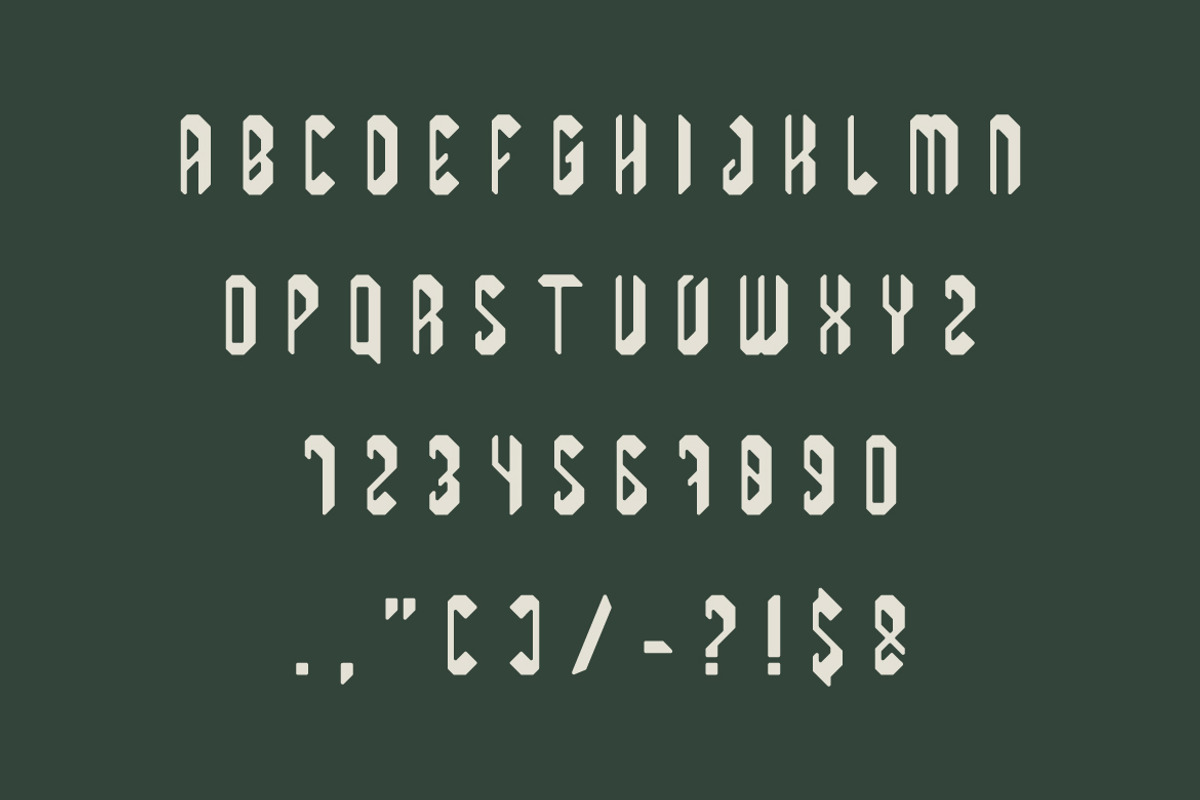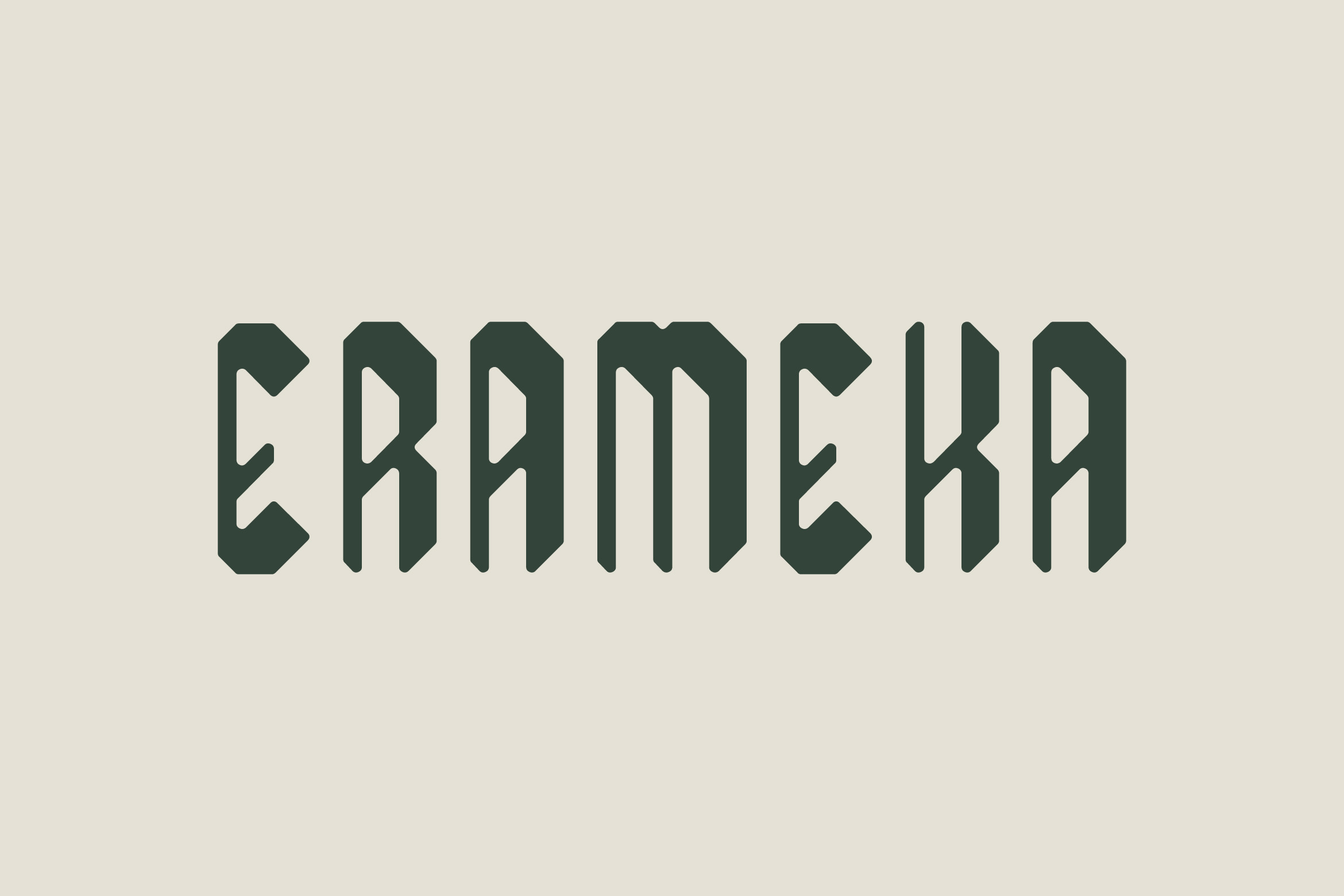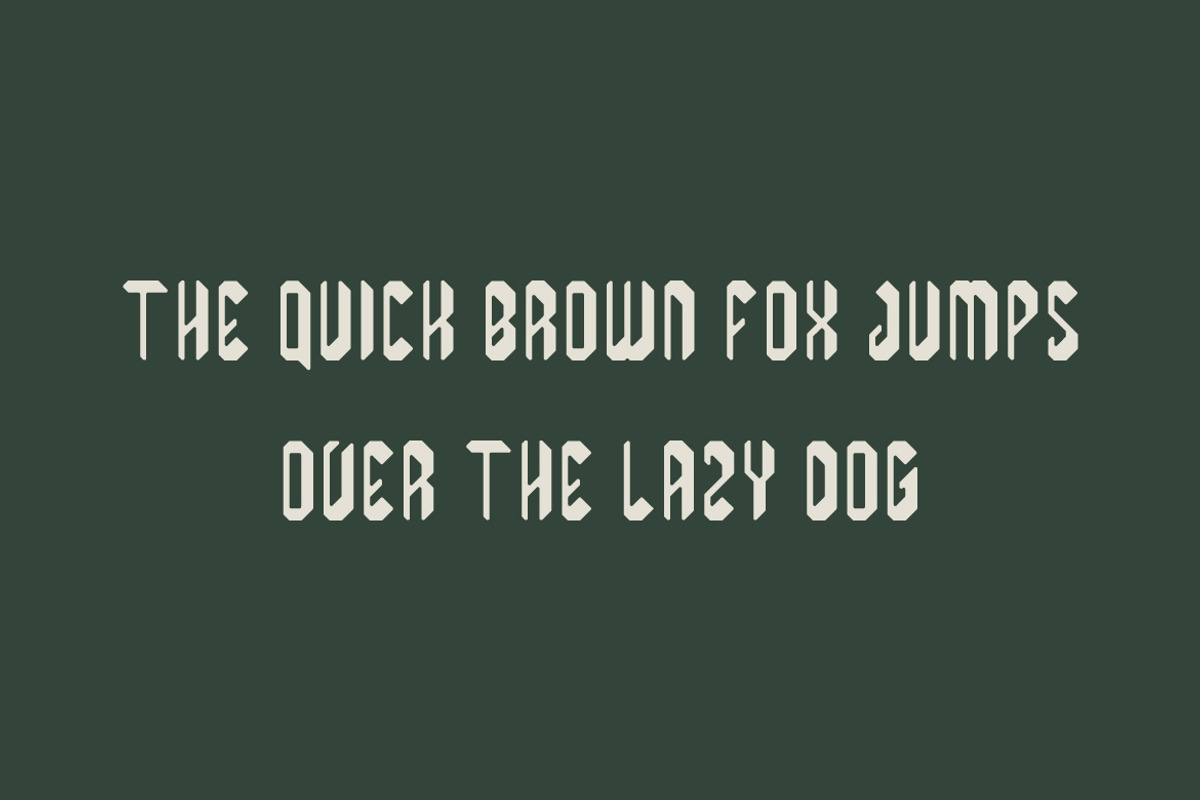
Erameka -Logo Typeface
Erameka is a sleek and versatile logo typeface designed to create a bold and memorable brand identity. With its modern and refined letterforms, it’s perfect for logos, branding, headlines, packaging, and high-end designs. Elevate your visuals with the stylish and professional look of Erameka!